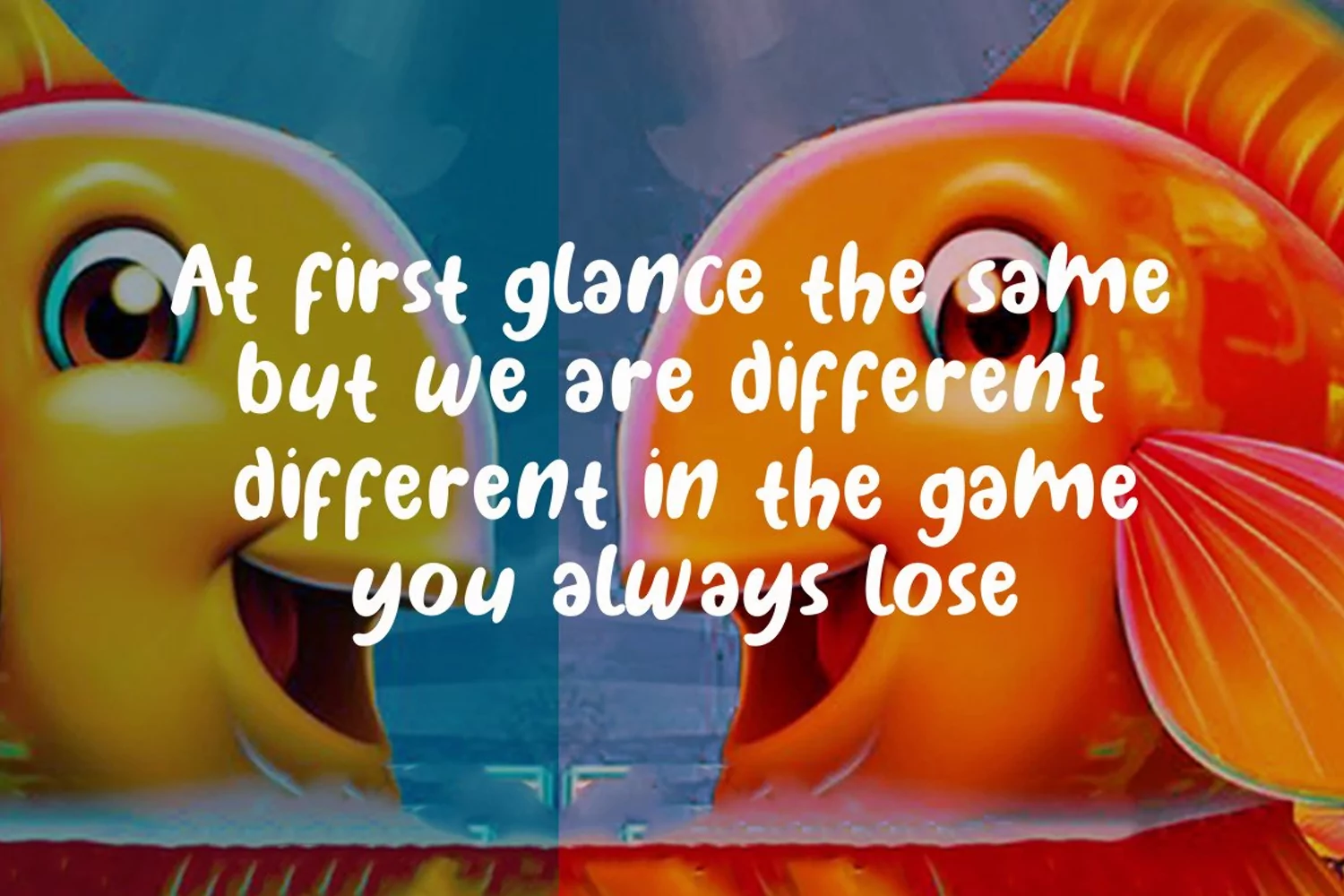
Sakamoto font with simple models of natural and comic, you can take advantage of the opportunity at any time one wonderful way to highlight the celebration of the feast of your best, because these fonts will be a driving force for purposes such as cover design, wedding invitations, party , graduation, birthday, gathering, etc.
Font Sakamoto if you want to use for your work this font can be used to easily and simply because there are a lot of features in it contains a complete set of letters lower and uppercase letters, assorted punctuation, numbers, and multilingual support.